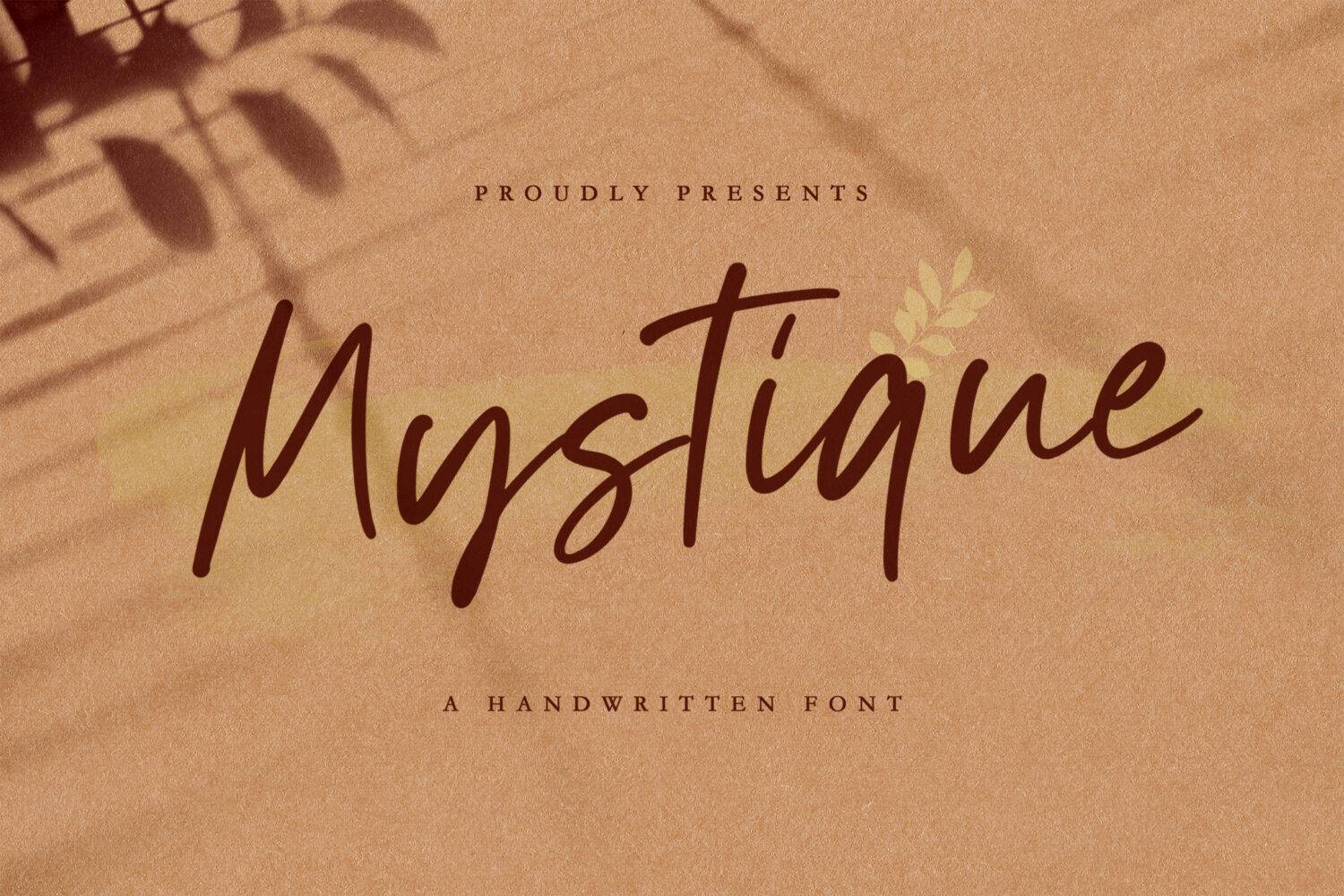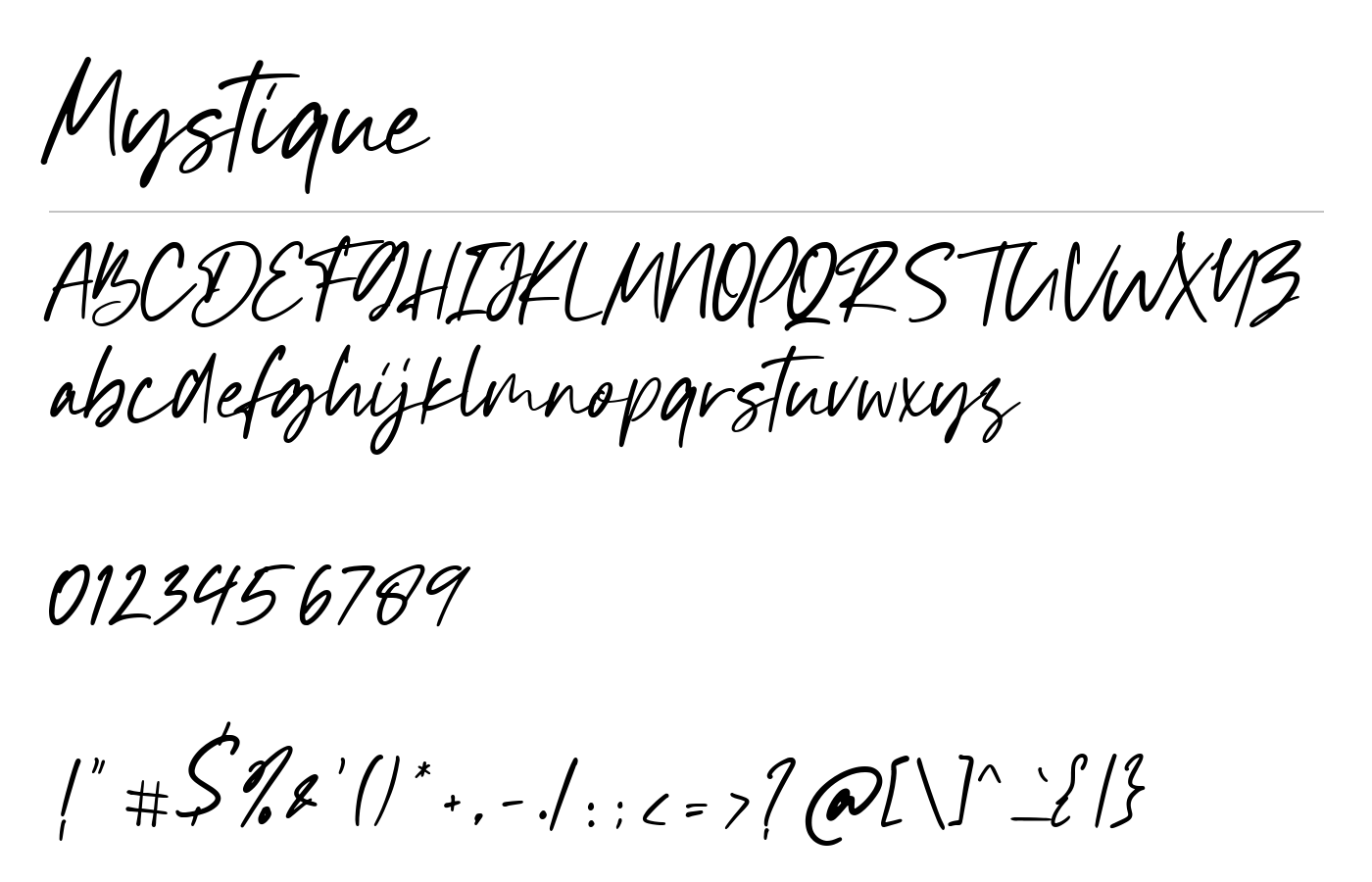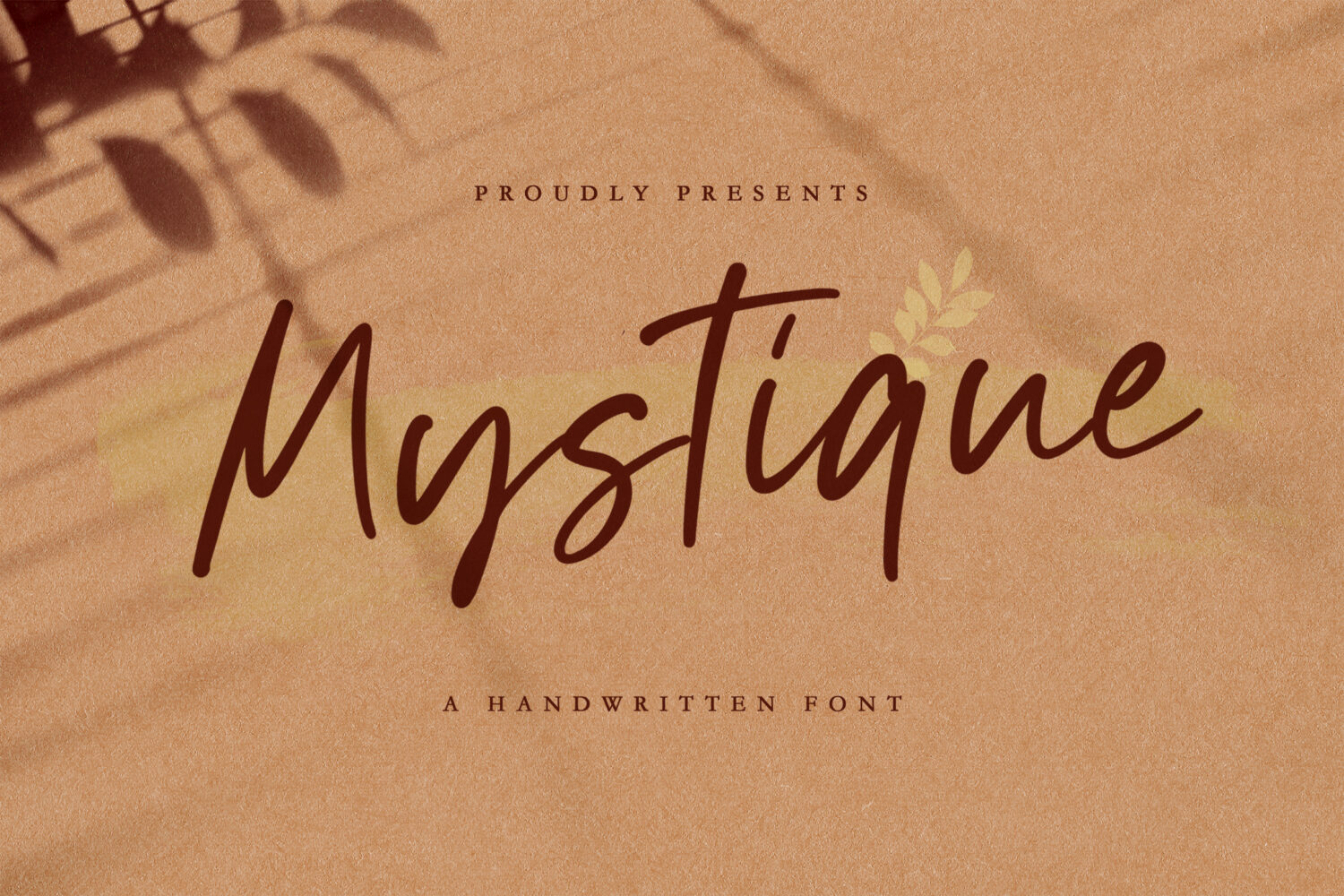
Mystique is a lively, handwritten script font with a natural, flowing style that evokes a personal and creative touch. Its slender strokes and slightly irregular letterforms give it an approachable yet elegant feel, making it perfect for branding, invitations, and lifestyle projects that seek a warm, authentic personality. This font works well for designs needing a casual, artistic flair without sacrificing readability.
Mystique
| Font family | Mystique |
| Release date | 2020-03-01 |
| Designer | StringLabs |